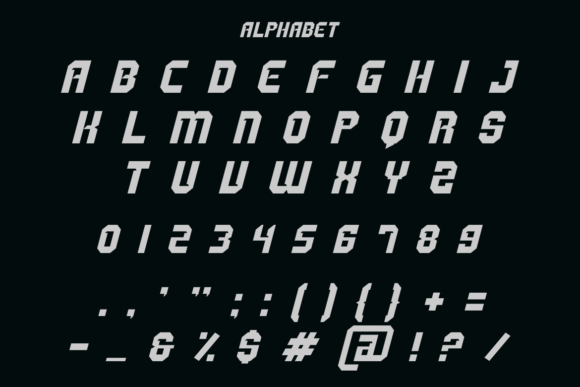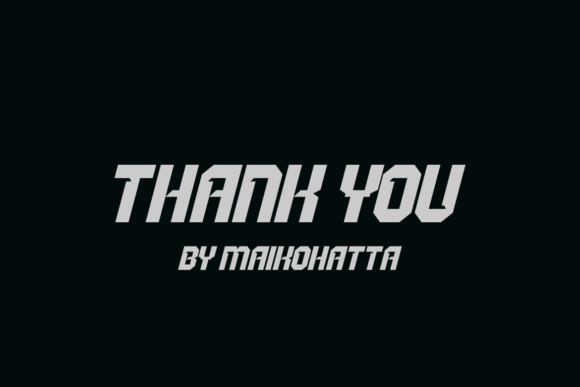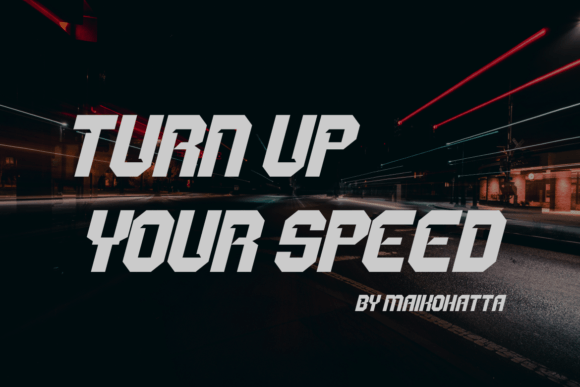
The Designer’s Delight: Unleashing the Power of Blauserum Font
I’ll never forget the time I was working on a project for a client who needed a bold, modern font to make their brand stand out. I had spent hours scouring the internet for the perfect one, but nothing seemed quite right. That was until I stumbled upon Blauserum Font. It was like a breath of fresh air – **cool**, **bold**, and **utterly modern**. In this article, I’ll share my experience with Blauserum, its features, and how to make the most of it in your designs.
An Honest Review of Blauserum Font
What I Love About Blauserum ✨
- ✅ Versatility: Blauserum is a display font that can elevate any creation, regardless of the topic or theme.
- ✅ Readability: Despite being bold, the font remains highly legible, even at smaller sizes.
- ✅ Uniqueness: Blauserum has a distinct personality that sets it apart from other fonts in its category.
- ✅ OpenType Features: The font comes with a range of OpenType features, including glyphs and stylistic alternates, which offer endless creative possibilities.
While Blauserum is an excellent font, it’s not without its limitations. For instance:
- ⚠️ Not Suitable for Body Text: Due to its bold nature, Blauserum is best used for headings and titles rather than body text.
- ⚠️ Limited Use of Ligatures: Some users may find the ligatures a bit limited, but this doesn’t detract from the font’s overall appeal.
Alternatives to Blauserum Font
The Story Behind Blauserum Font
Blauserum Font was designed with the modern designer in mind. Its creator aimed to craft a font that was not only **bold** and **eye-catching** but also versatile and easy to read. The result is a font that has quickly become a favorite among designers and crafters.
Q: Is Blauserum suitable for body text?
A: No, Blauserum is best used for headings and titles due to its bold nature.
Q: Does Blauserum support OpenType features?
A: Yes, Blauserum comes with a range of OpenType features, including glyphs and stylistic alternates.